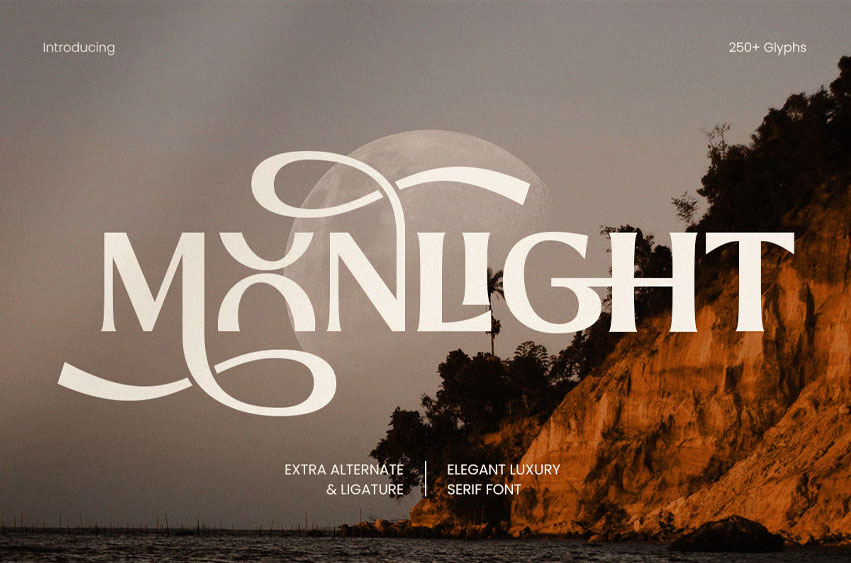
Moonlight Font
Moonlight Font is an elegant, luxury font crafted for premium branding, wedding invitations, logos, and high-end designs. Its refined letterforms and graceful curves provide a sophisticated touch that elevates any creative project.
Inspired by classic elegance and contemporary design, Moonlight brings a luxurious feel to both print and digital media, making it ideal for fashion, lifestyle, and luxury brands.
Moonlight – Elegant Luxury Font Features
• Elegant and sophisticated character set
• Perfect for weddings, branding, and luxury designs
• OpenType features for extra versatility